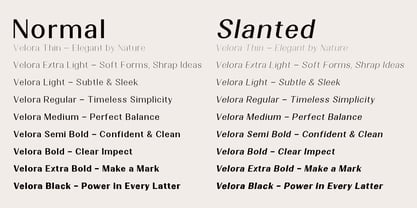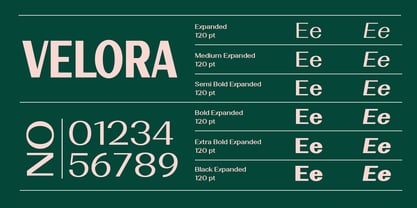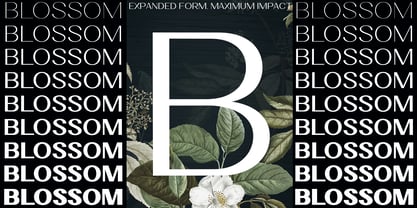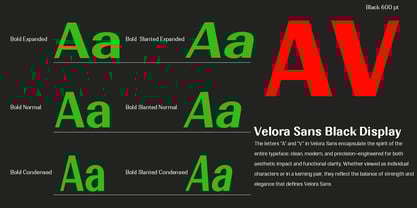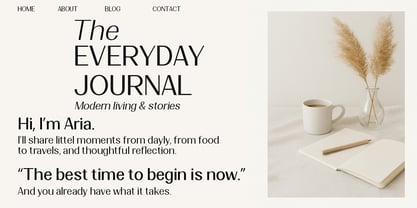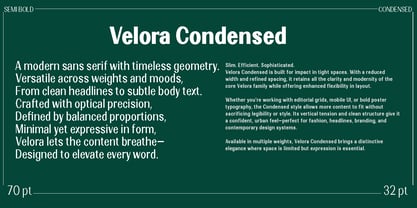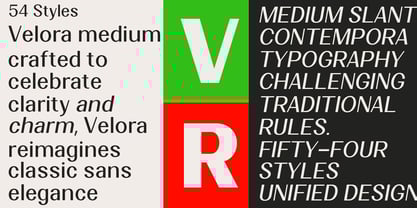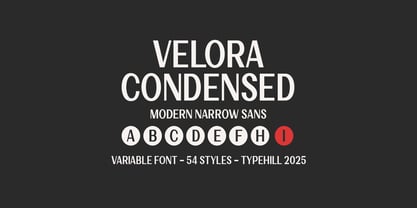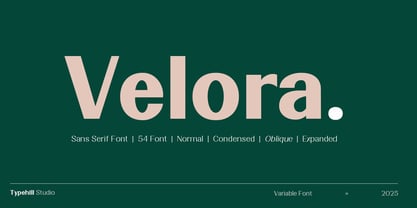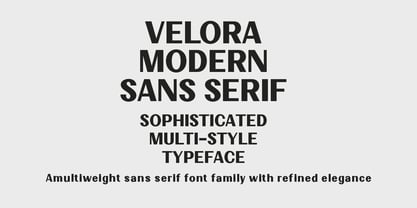
Velora
by Typehill Studio
The Velora Font Family was designed by Teuku Fahruddin and published by Typehill Studio. Velora contains 55 styles and family package options.
Velora - Versatile Sans Serif with Character
Velora is a refined sans serif family that blends modern functionality with timeless elegance. Designed with clarity and flexibility in mind, Velora is ideal for both digital interfaces and sophisticated print applications.
With 54 styles ranging from delicate Thin to powerful Black—each with matching Obliques—Velora provides a full spectrum of expression. Its open letterforms and balanced proportions make it highly legible at any size, while subtle details add warmth and distinction to display settings.
Whether you're designing branding systems, editorial layouts, websites, or signage, Velora offers the versatility and finesse to support your voice.